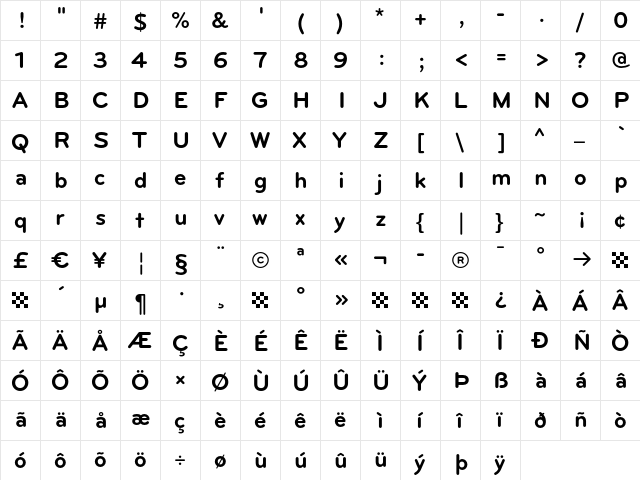
Bryant-Bold Regular
Design Context for Bryant-Bold Typeface
Bryant-Bold offers clean, dependable letterforms without strong stylistic allegiance, making it a practical choice for designers who need flexibility. The heavy weight commands attention and anchors typographic hierarchies.